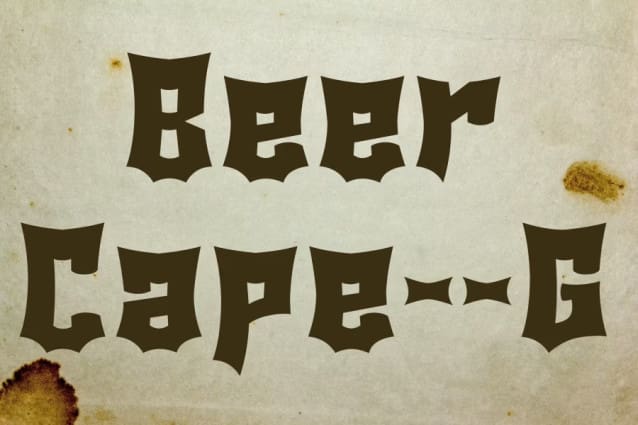
Beer Cape__G Font
Beer Cape‑G Font is a bold display typeface with a rugged, handcrafted aesthetic. Inspired by gothic lettering and whimsical cartoon outlines, it features chunky, irregular forms that feel both strong and playful. The uneven edges and quirky curves give the letters a lively character, reminiscent of hand-painted pub signs or vintage horror movie titles.
Each letterform combines broad strokes with sharp points and exaggerated serifs, creating high contrast shapes that command attention. The open counters and generous spacing let the design breathe despite its heavy weight, while the consistent x-height ensures legibility. Subtle variations in width and height add to the organic feel, making words look like they’ve been cut from paper or carved in wood.
Thanks to its distinctive personality, Beer Cape‑G is perfect for headlines, posters, packaging, and logos that need to stand out. Use it for craft beer labels, Halloween event flyers, game titles, or any project that calls for a fun, dramatic look. Pair it with a simple sans-serif text to balance its strong presence and let its playful energy shine.